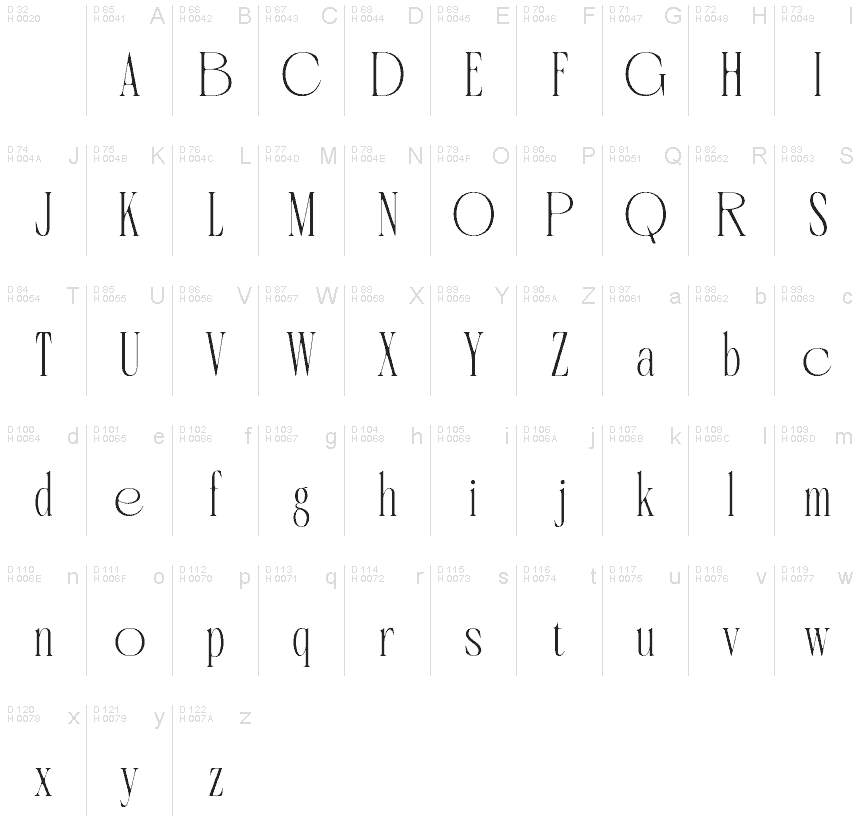
CS Golder Drawn font is a light serif font designed by Craft Supply Co. with elements of elegance, tradition, and refinement. The modern typeface showcases balanced proportions and midsize stroke contrasts that provide clear reading and a sophisticated professional look.